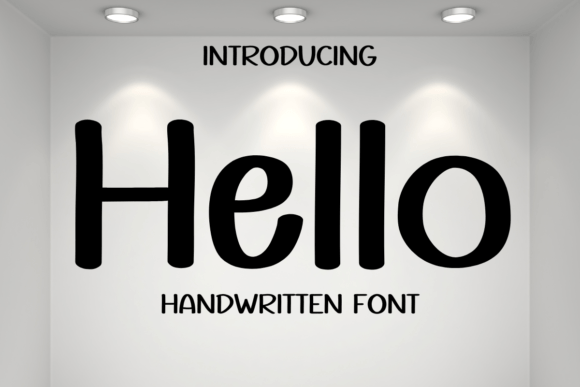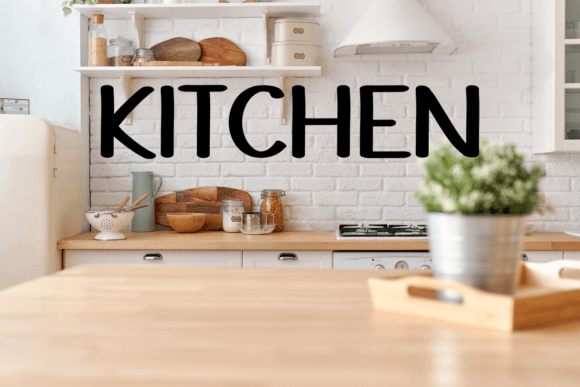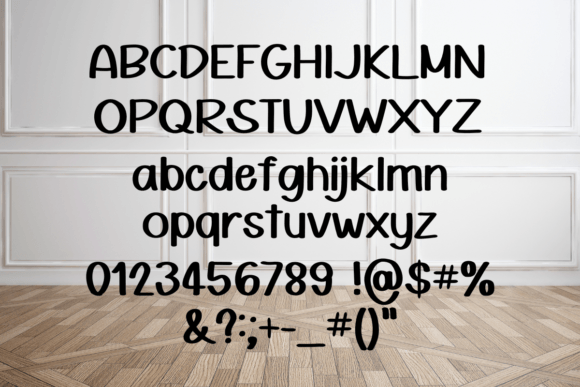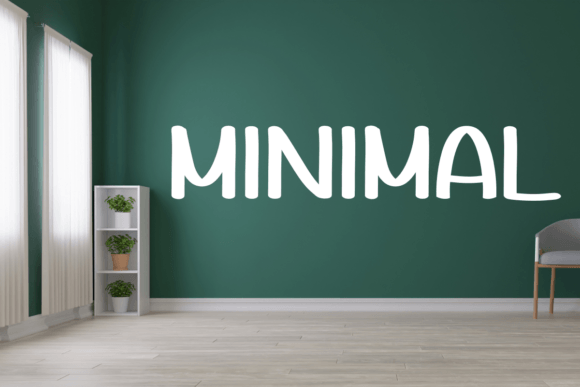
Hello Font
About Hello Font
“Hello” is a minimal and contemporary handwritten font that embodies simplicity and modernity. It has the versatility to become your preferred font choice for a wide range of applications, from crafting to digital design, presentations, and even greeting card creation. This font has the potential to seamlessly adapt to various occasions, making it a valuable addition to your font collection.
The minimal and modern design of “Hello” makes it a flexible option for a multitude of design projects. Its clean lines and straightforward aesthetics lend a sense of clarity and sophistication to your work, regardless of the creative context.
In the world of design, fonts play a significant role in conveying style, setting the mood, and enhancing visual appeal. “Hello” excels in these aspects by offering a minimalist yet contemporary handwritten style that can make your designs feel both approachable and polished. Its versatility makes it a dependable choice for designers looking for a go-to font for various occasions.
In summary, “Hello” is more than just a font; it’s a versatile and modern tool for enhancing your designs, no matter the occasion. Its minimal and contemporary handwritten style makes it a top choice for designers seeking a reliable and stylish font for a wide range of creative projects. Whether you’re an experienced designer or just getting started, “Hello” is the font that can simplify and elevate your design work.